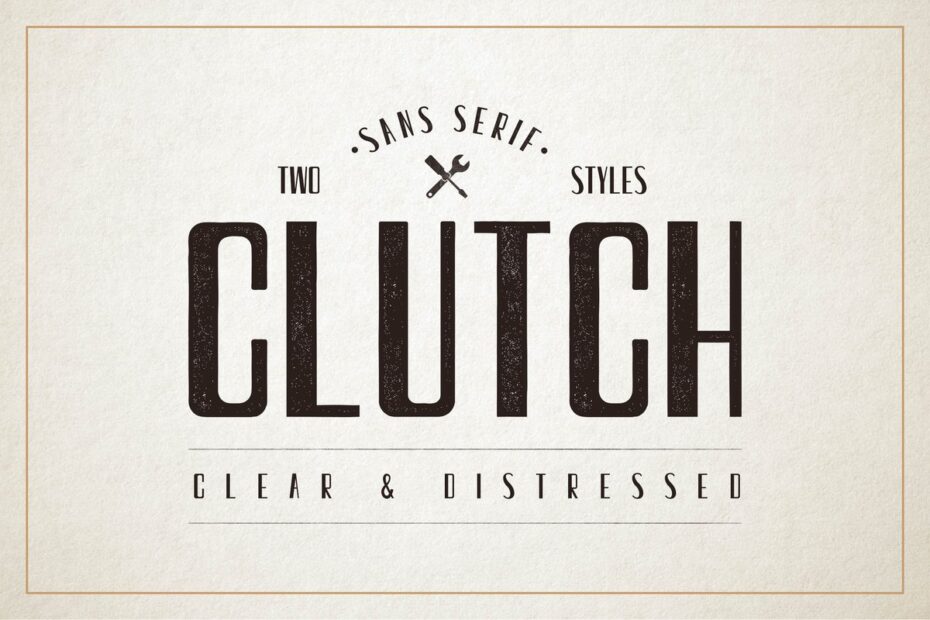
The Perfect Catch for Retro Designs
You know that feeling when you’re staring at a blank canvas, trying to conjure up the perfect design? It’s like waiting for the perfect pitch in baseball – you need something that’s going to knock it out of the park. For designers, finding the right font can be the difference between a home run and a strikeout.
Enter the Clutch Font, a stylish sans serif typeface that’s tailor-made for all things retro. With its clean and distressed styles, this font offers designers the flexibility to create unique and eye-catching designs that will leave a lasting impression. Whether you’re working on a vintage-inspired project or just want to add some nostalgic charm to your branding, Clutch Font is the perfect catch.
Clutch Font Key Features
- Unique Characteristics: Clutch Font features a bold, modern design with geometric shapes and clean lines, making it ideal for use in headings, titles, and other display typography.
- Style Options: The font comes in multiple styles, including Regular, Bold, Italic, and Bold Italic, allowing for a range of creative possibilities.
- Legibility: Clutch Font is designed for optimal legibility, ensuring that text remains clear and easy to read even at smaller font sizes.
Designer Review: Clutch Font
After diving into the world of Clutch Font, I have to say it’s a mixed bag for me. Let’s start with the good stuff:
- ✨ I love the modern, sleek aesthetic of Clutch. The font’s clean lines and geometric shapes make it perfect for contemporary designs.
- ✨ Clutch is highly versatile and can be used in a wide range of applications, from logos and branding to digital interfaces and print materials.
- ✨ The font’s open-type features make it easy to customize and manipulate, allowing designers to create unique and interesting typographic effects.
- ⚠️ Clutch can feel a bit sterile and cold in certain contexts, which may not be suitable for designs that require a warmer, more approachable tone.
- ⚠️ The font’s geometric shapes can sometimes make it difficult to read, particularly at smaller font sizes.
Overall, I think Clutch is a solid choice for designers who are looking for a modern, versatile font. While it may not be perfect for every project, it’s certainly worth considering for designs that require a sleek, contemporary look.
Getting the Most Out of Clutch Font
To get the most out of Clutch Font, use it in bold or italic styles to add emphasis to your text. You can also combine it with other fonts to create a unique and visually appealing design.
Clutch Font is commonly used for branding, marketing materials, and digital signage. It’s also a popular choice for creating eye-catching headlines and titles.
Alternatives to Clutch Font for Designers
Playfair Display is a high-end serif font with elegant, luxurious feel. It’s ideal for use in branding, magazines, and high-end advertising where a touch of sophistication is needed. Compared to Clutch Font, Playfair Display has a more refined and classic look, making it suitable for a wide range of applications.
Great Vibes is a modern, elegant script font with a fun and friendly feel. It’s perfect for use in social media, advertising, and packaging where a touch of personality is needed. Compared to Clutch Font, Great Vibes has a more relaxed and casual look, making it suitable for a wide range of applications.
Merriweather is a classic, serif font with a timeless feel. It’s ideal for use in publishing, academic writing, and corporate communications where a sense of tradition and reliability is needed. Compared to Clutch Font, Merriweather has a more formal and traditional look, making it suitable for use in a wide range of formal applications.